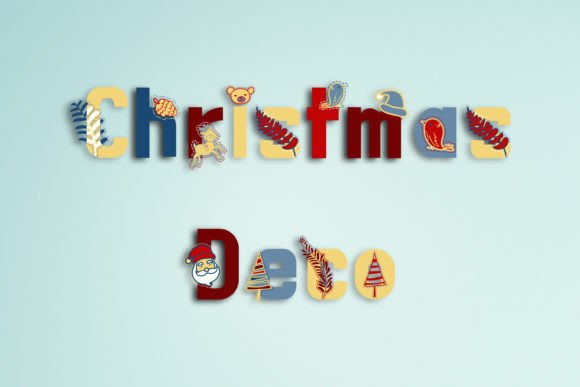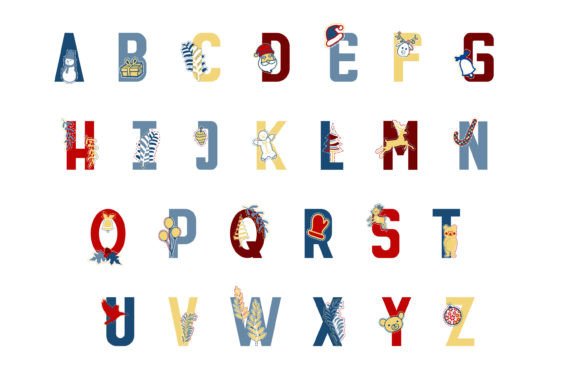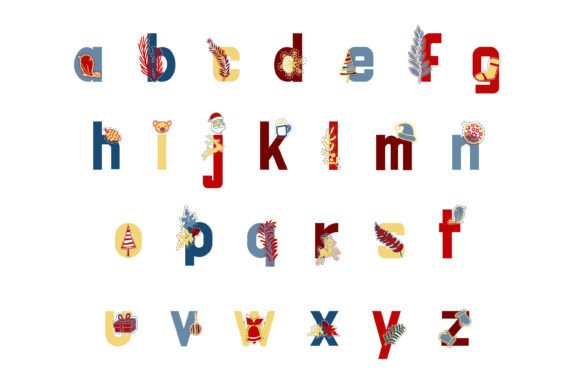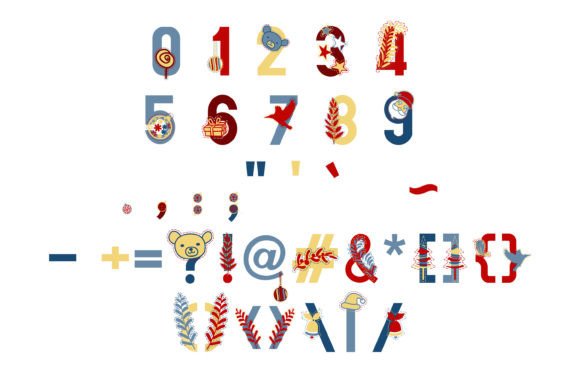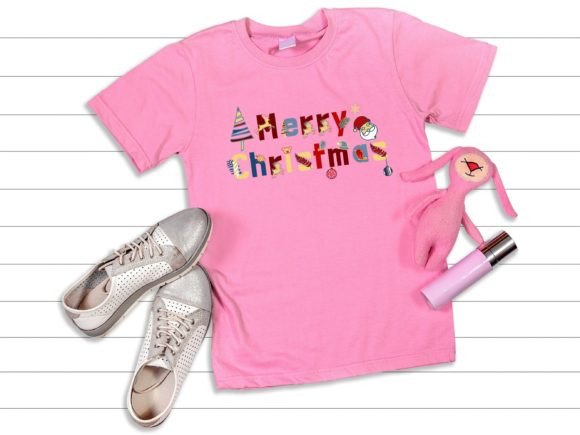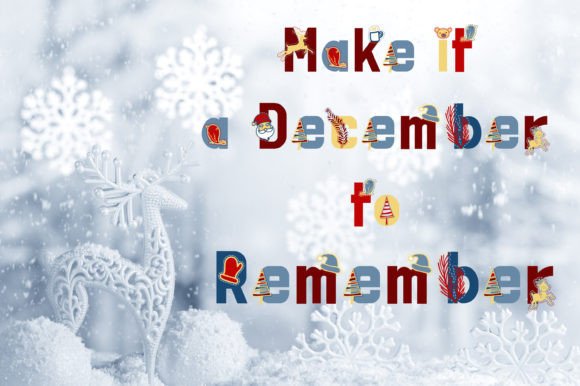
Introducing Christmas Deco Font: The Ultimate Festive Design Companion
Are you looking for a font that captures the essence of Christmas and adds a touch of magic to your designs? Look no further than Christmas Deco Font, a vibrant and playful decorative font that’s perfect for creating stunning holiday-themed projects. In this article, we’ll dive into the world of Christmas Deco Font and explore its features, uses, and benefits for designers and crafters.
What is Christmas Deco Font?
Christmas Deco Font is a carefully crafted, colorful decorative font that combines cute elements with a festive spirit. Its unique design makes it an ideal choice for a wide range of applications, from logos and branding to greeting cards, posters, social media graphics, and print-on products like mugs, shirts, and more.
Key Features of Christmas Deco Font
• Colorful and Vibrant: Christmas Deco Font boasts a bright and cheerful color scheme that’s sure to grab attention and spread holiday cheer.
• Cute Elements: The font features adorable decorative elements that add a touch of whimsy and fun to your designs.
• Highly Versatile: With its unique style, Christmas Deco Font can be used for various design projects, from digital graphics to print materials.
Uses of Christmas Deco Font
Christmas Deco Font is an incredibly versatile font that can be used in a multitude of ways. Here are some ideas to get you started:
• Logos and Branding: Create a memorable and festive logo for your business or brand with Christmas Deco Font.
• Greeting Cards and Invitations: Design beautiful and unique holiday greeting cards, invitations, and postcards with this charming font.
• Posters and Flyers: Create eye-catching posters and flyers for holiday events, sales, or promotions.
• Social Media Graphics: Add a touch of festive flair to your social media graphics, including Facebook posts, Twitter headers, and Instagram stories.
• Print-on Products: Design stunning print-on products like mugs, shirts, tote bags, and more with Christmas Deco Font.
Christmas Deco Font offers numerous benefits for designers and crafters, including:
• Time-Saving: With its pre-designed characters and decorative elements, Christmas Deco Font saves you time and effort in creating holiday-themed designs.
• Increased Creativity: The font’s unique style and versatility inspire creativity and help you produce fresh and original designs.
• Professional Results: Christmas Deco Font’s high-quality design ensures professional-looking results, even for those without extensive design experience.
Font Name Christmas Deco Font
Author Simple Font
Christmas Deco Font is a fantastic addition to any designer’s or crafter’s toolkit. Its colorful, playful, and festive design makes it perfect for creating stunning holiday-themed projects. With its versatility, ease of use, and affordability, Christmas Deco Font is sure to become a go-to font for designers and crafters looking to add a touch of magic to their creations.